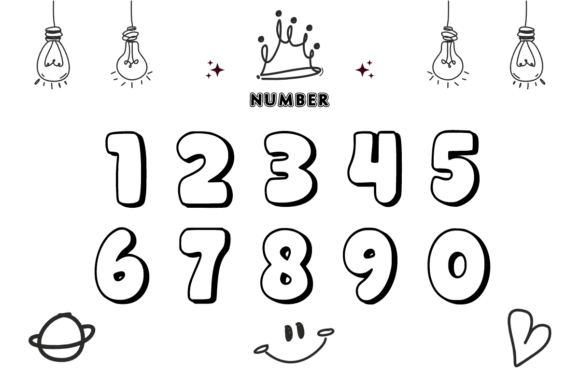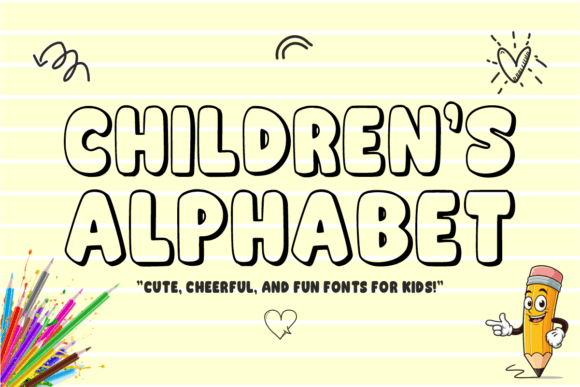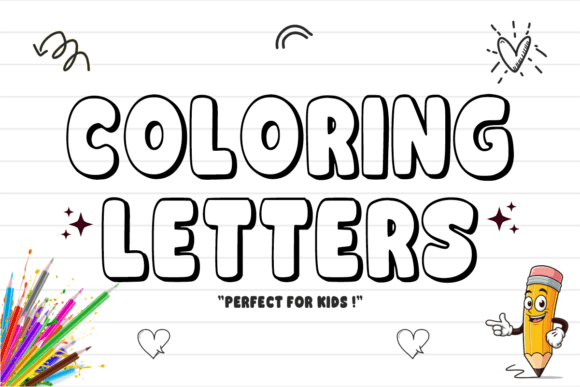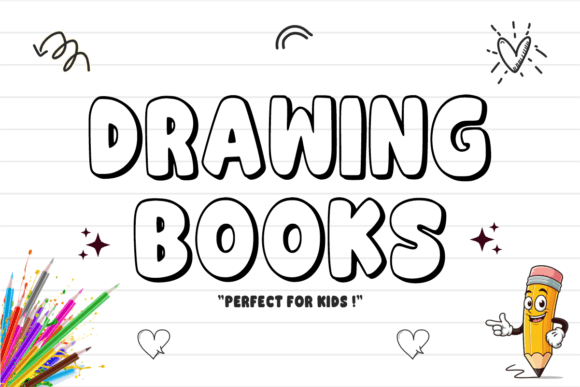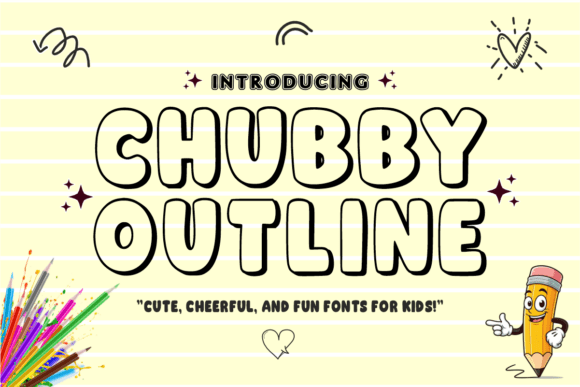
Introducing Chubby Outline Font: The Perfect Choice for Fun and Creative Designs
Are you a designer or crafter looking for a font that can add a touch of fun and playfulness to your projects? Look no further than the Chubby Outline Font! This modern, chubby outline cartoon font is perfect for a wide range of creative applications, from children’s craft designs to animations and comic titles.
What Makes Chubby Outline Font So Special?
The Chubby Outline Font is a unique and charming typeface that consists of only uppercase letters. Each character is carefully crafted to be cute, unique, and sweet, making it easy to recognize and perfect for designs that need to appeal to a younger audience. The font’s chubby outline style gives it a distinctive and eye-catching look that’s sure to stand out.
Perfect for a Wide Range of Creative Projects
The Chubby Outline Font is incredibly versatile and can be used for a wide range of creative projects, including:
- Children’s craft designs: The font’s playful and fun style makes it perfect for craft designs that need to appeal to kids.
- Sublimated t-shirts: Add a touch of fun and personality to your t-shirt designs with the Chubby Outline Font.
- Mugs: Create cute and playful mug designs that are sure to bring a smile to anyone’s face.
- Tote bags: The font’s bold and playful style makes it perfect for tote bag designs that need to make a statement.
- Animations: The Chubby Outline Font is perfect for animations that need a fun and playful touch.
- Comic titles: Add a touch of whimsy and fun to your comic titles with this unique font.
- Children’s coloring books: The font’s cute and playful style makes it perfect for children’s coloring books.
- Children’s needs: The font is also perfect for any design project that needs to appeal to children, such as stickers, posters, and more.
Why Choose the Chubby Outline Font?
There are many reasons why the Chubby Outline Font is the perfect choice for your next design project. Here are just a few:
- Unique and eye-catching style: The font’s chubby outline style is unlike anything else out there, making it sure to grab attention.
- Easy to recognize: The font’s cute and playful characters are easy to recognize, making it perfect for designs that need to communicate with a younger audience.
- Versatile: The font can be used for a wide range of creative projects, from children’s craft designs to animations and comic titles.
- Fun and playful: The font’s playful and fun style is perfect for designs that need to bring a smile to someone’s face.
Tips for Using the Chubby Outline Font
Here are a few tips for getting the most out of the Chubby Outline Font:
- Use it with bright colors: The font’s playful style pairs perfectly with bright and bold colors.
- Experiment with different sizes: The font looks great in a variety of sizes, from small and subtle to large and bold.
- Combine it with other fonts: The Chubby Outline Font pairs well with other fonts, so don’t be afraid to experiment with different combinations.
The Chubby Outline Font is a unique and charming typeface that’s perfect for a wide range of creative projects. Its playful and fun style makes it ideal for designs that need to appeal to a younger audience, and its versatility makes it a great choice for designers and crafters. So why wait? Pour your imagination into your next design project with the Chubby Outline Font!